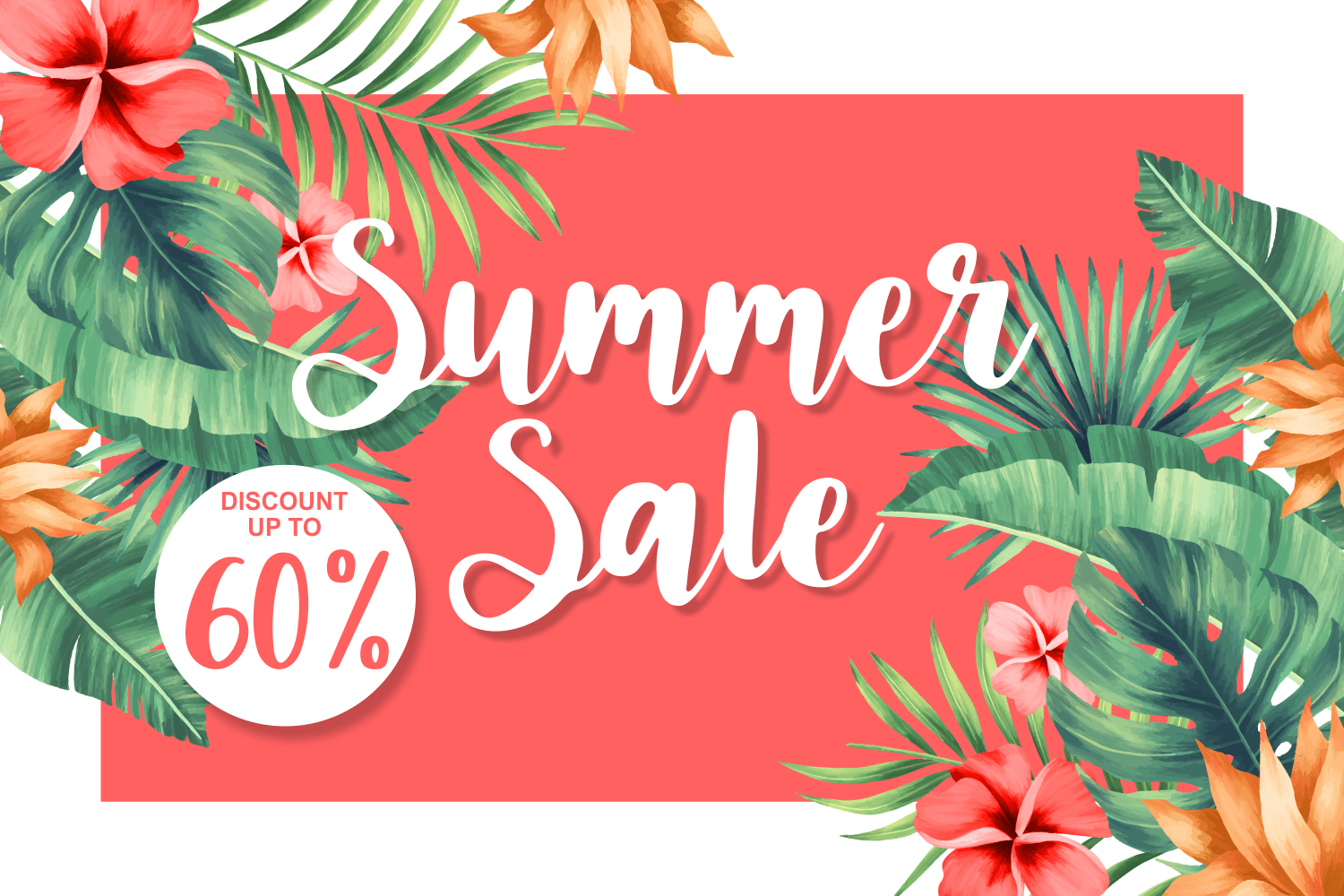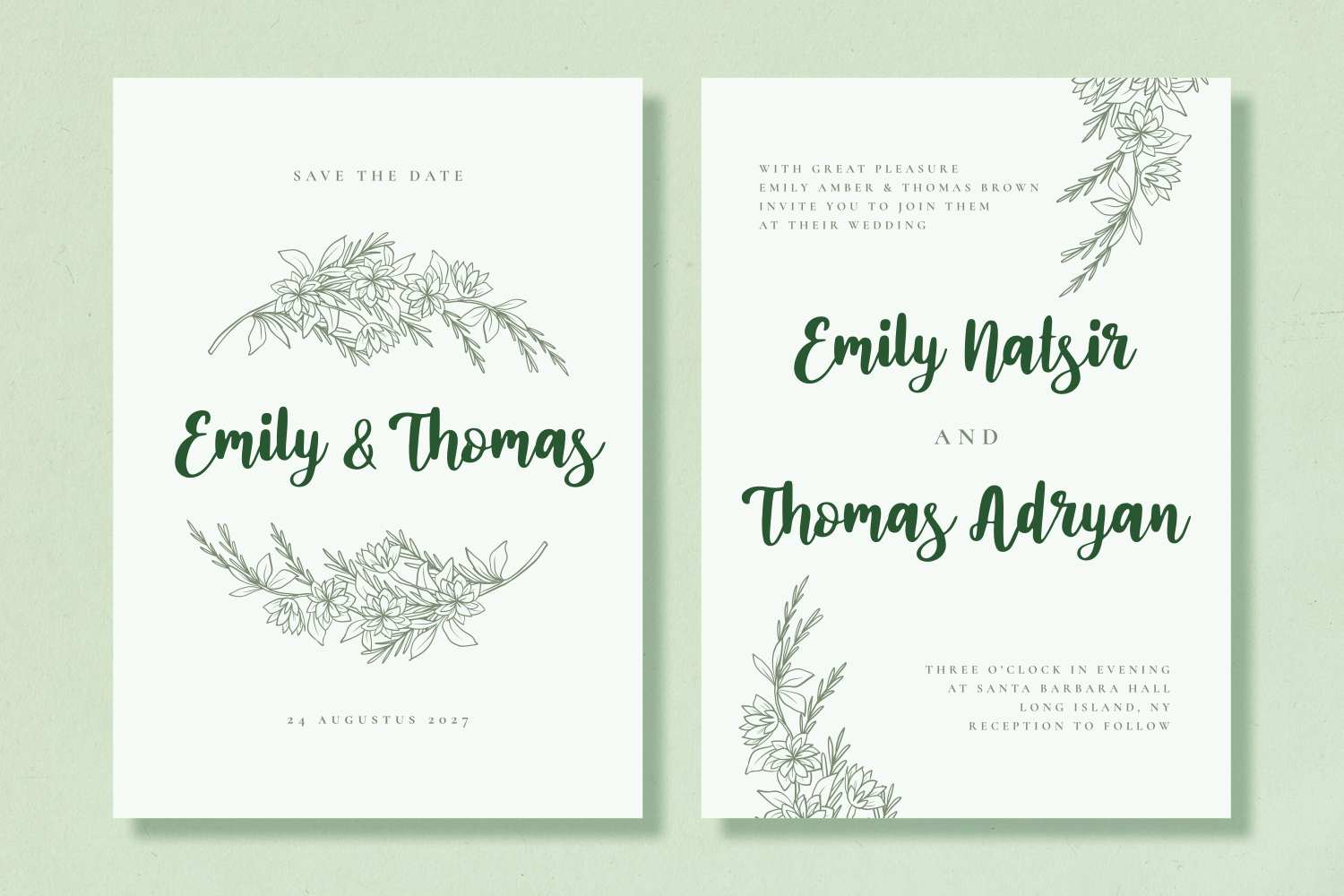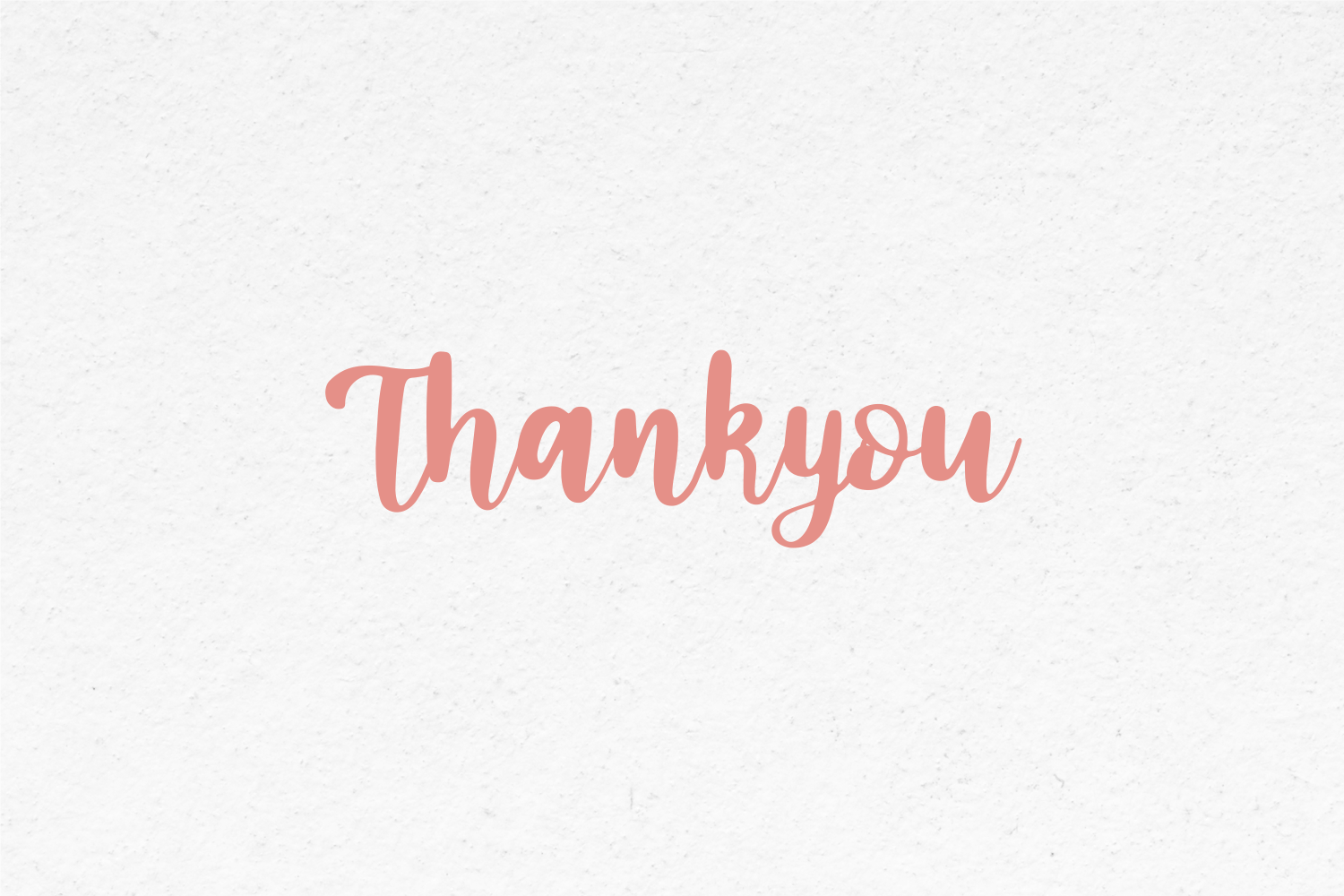
Nichea Rubean Font
Nichea Rubean Script Font is an enchanting handwritten font. This versatile script font has a wide spectrum of applications ranging from greeting cards to headlines and is guaranteed to add a romantic feel to your next project.